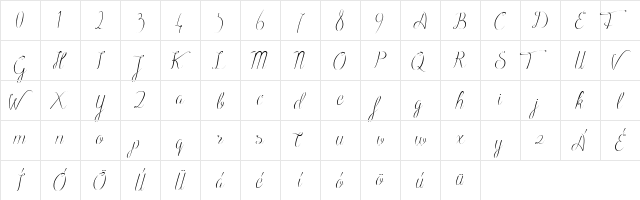
Black Olives Regular
Design Context for Black Olives Typeface
Black Olives is a composed and adaptable typeface that performs quietly and consistently across a wide range of design contexts.